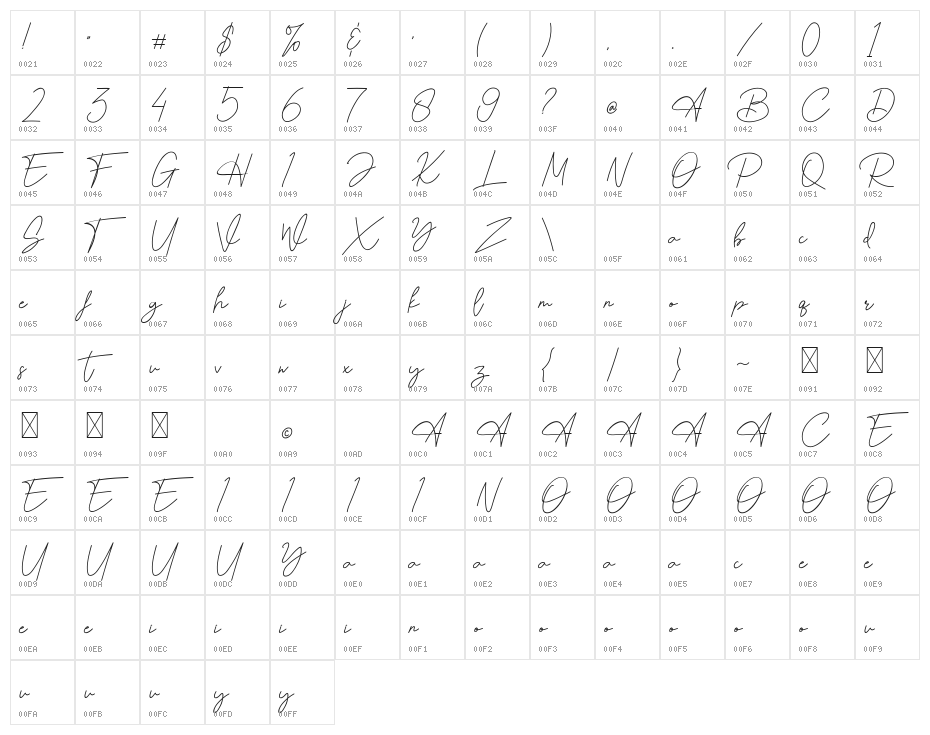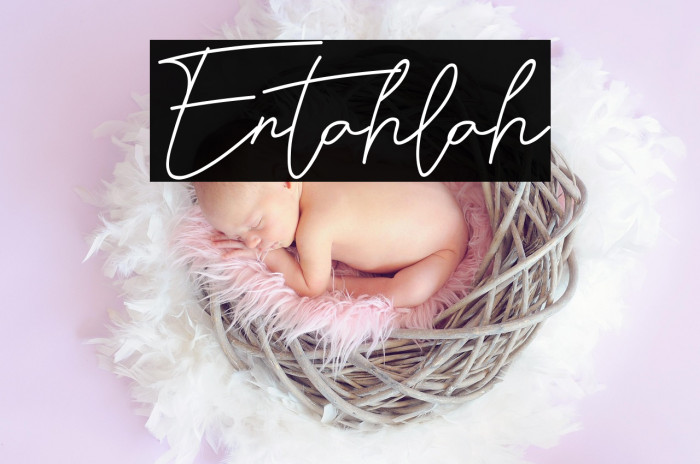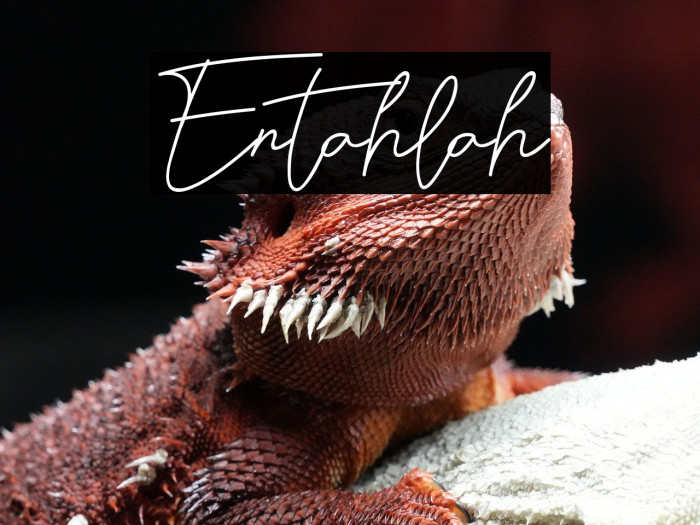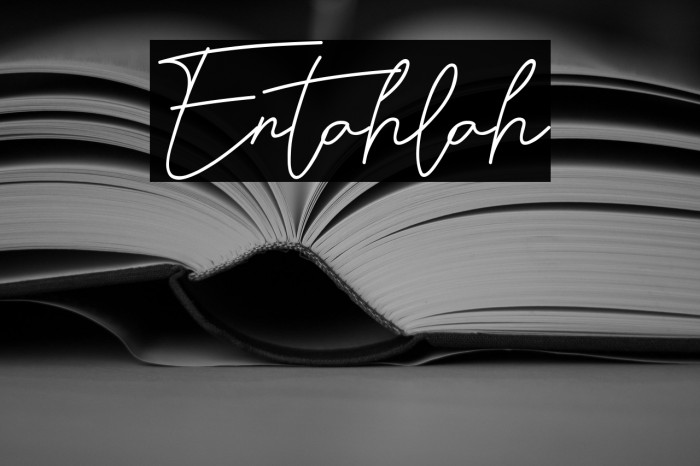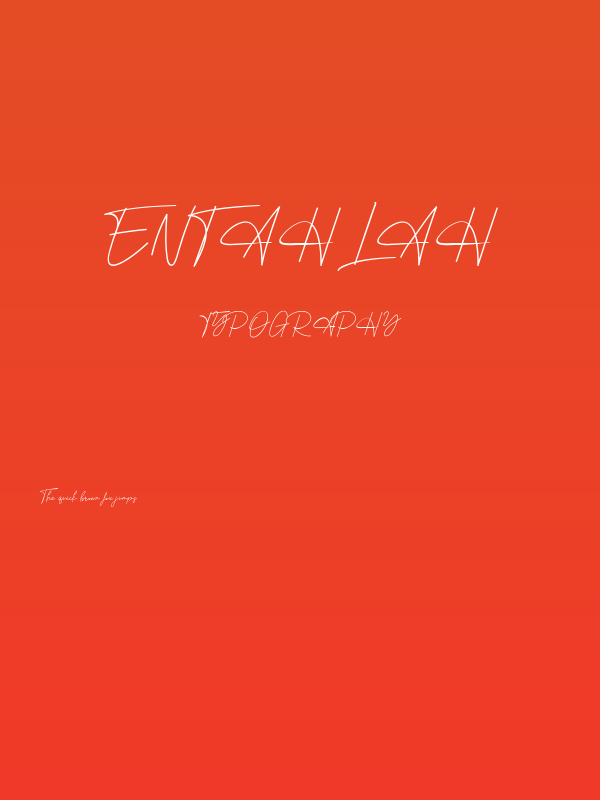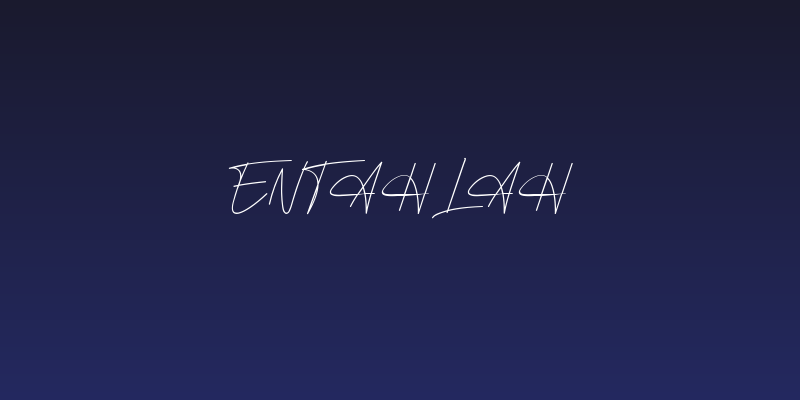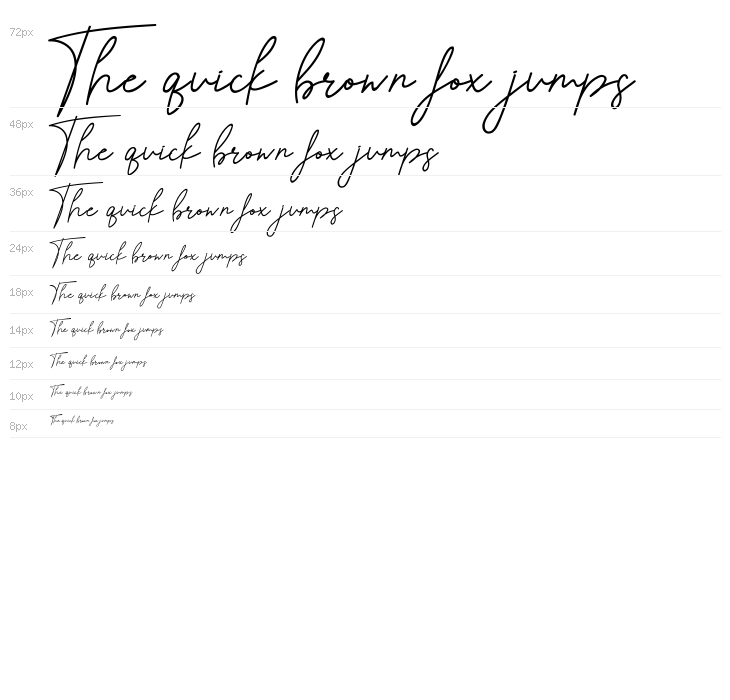
Entahlah Font
Entahlah Description
This font features a stylish and elegant script design with a handwritten feel. The uppercase letters are elongated and slightly slanted, giving a sense of fluidity and motion. The lowercase letters are more compact, with some characters featuring unique loops and flourishes that add to the font's charm. The numerals are consistent with the overall style, maintaining a balance between readability and artistic flair. Special characters are included, enhancing the font's versatility for various design projects. The overall appearance is sophisticated and modern, making it suitable for a range of creative applications.
| Use Case | Logos, Invitations, Branding |
| Proposed Projects | Ideal for wedding invitations, branding, social media graphics, and elegant packaging designs. |